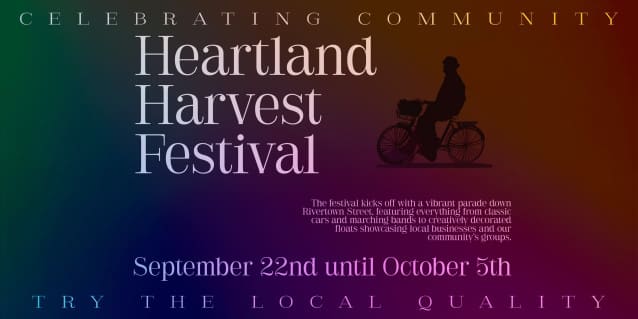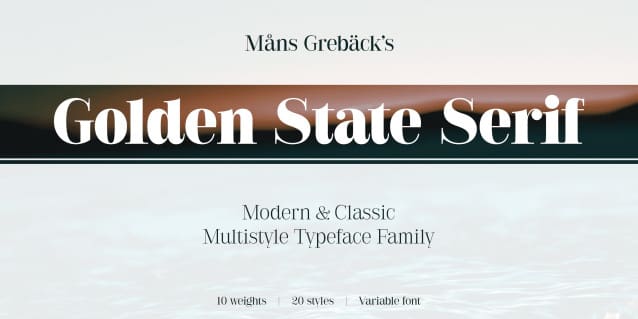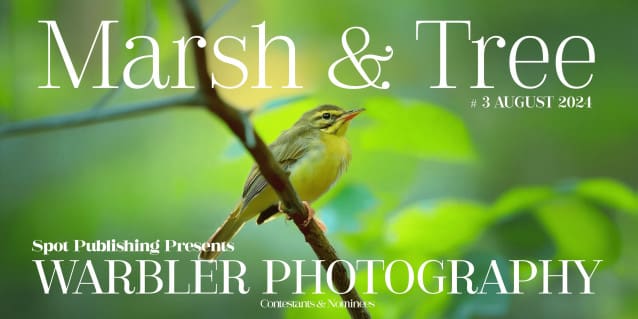
Golden State Serif Font Family
Golden State Serif Font Family, is a finely crafted typeface that blends classic elegance with modern versatility. Designed with balanced proportions, its timeless appeal ensures readability in newspapers and formal documents.
Golden State Serif is also available as a variable font, offering seamless adjustability in weight and style in hundreds of variations distilled down to a single font file. This allows for precise customization to match your design needs, providing flexibility and a wide range of typographic expressions within a single typeface.